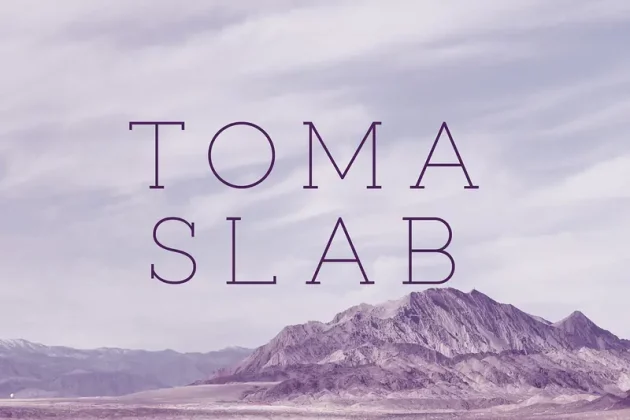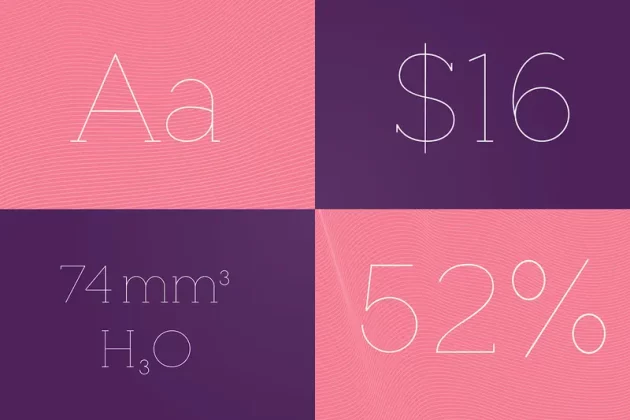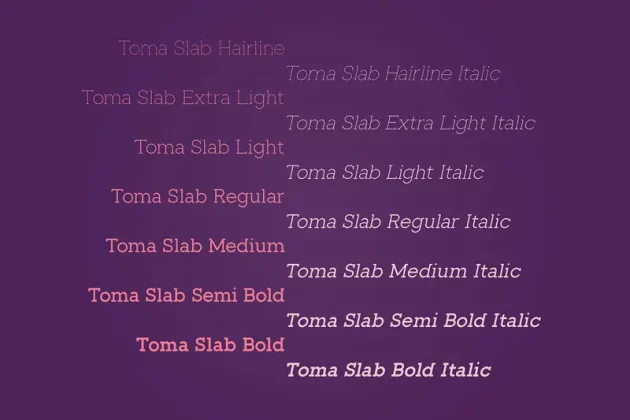
About Toma Slab Serif Font
Toma Slab is an extended family of 14 fonts. It was designed by Joao Symington & JAM Type Design in 2015.This typeface is a robust slab serif family based on the popular Toma Sans with subtle details. It’s optimized for longer texts and highly readable in small sizes. It is intended to be used in applications like magazines, newspapers and digital devices. It also works great as a corporate typeface. With more than 655 glyphs in each font, Toma Slab is equipped for complex, professional typography.